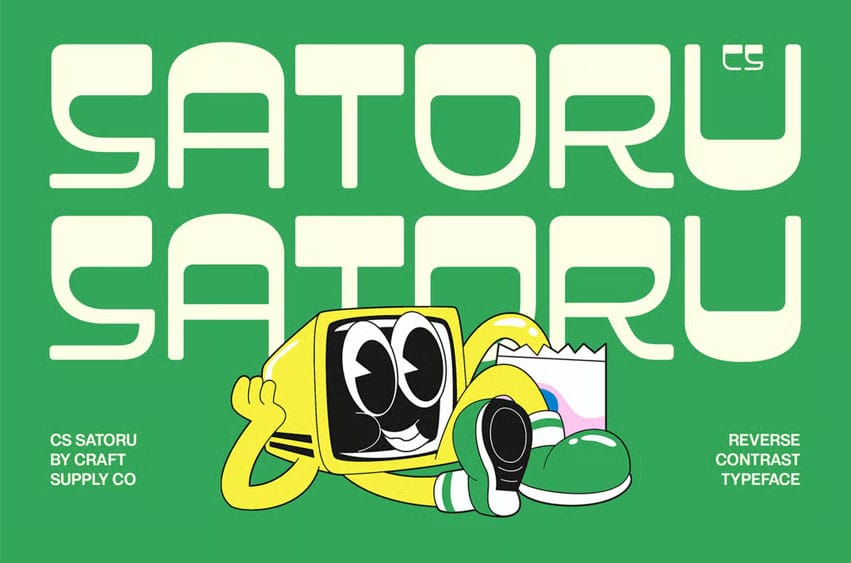
Satoru Font Striking Reverse Contrast Design. This is a reverse contrast display font that blends retro characters with modern style. Its bold letterforms and unexpected weight distribution create a dynamic visual rhythm, offering a unique twist on traditional sans serif design.
Modular Aesthetics with a Classic Spirit Featuring geometric shapes and structured balance, this font draws inspiration from classic design movements while maintaining a clean, contemporary edge. This combination of retro modularity and modern clarity makes it visually engaging and full of personality.
Perfect for Distinctive Branding and Editorial Work. Ideal for posters, branding, and editorial layouts, this font commands attention through its confident form and expressive contrast. It’s a perfect choice for designers aiming to create visuals that stand out while retaining a sense of sophistication.
Retro Style, Modern Versatility. This font captures the spirit of vintage design with a forward-thinking attitude. Its bold shapes and modular structure make it a powerful tool for distinctive branding, promotional materials, and creative projects that seek both nostalgia and innovation.